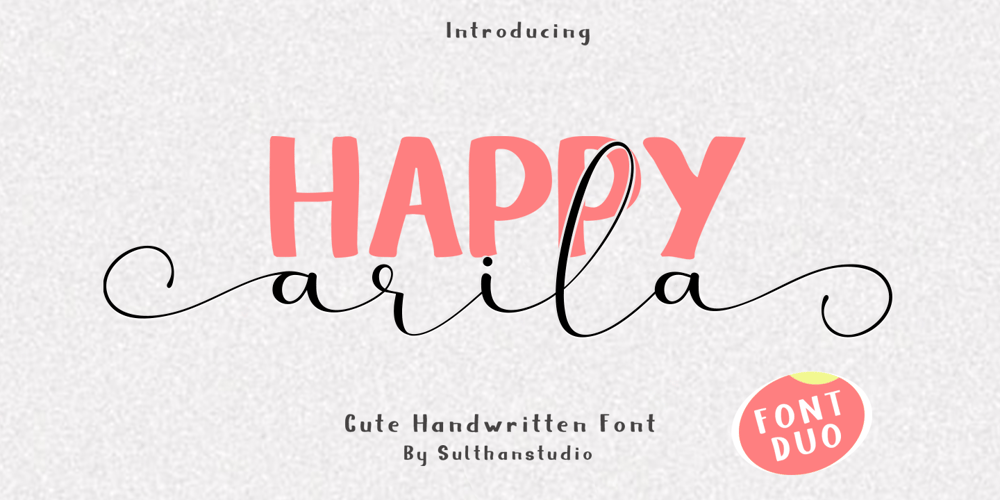
Happy arila script Font Family was designed by Nasrullah and published by Sulthan Studio. Happy arila script contains 2 styles and family package options. Happy arilaHello, I made two handwritten fonts, one with thickness and can be used for whatever you are working on clarifying what you want to display, and a smooth script font is also here to make your work be sweeter